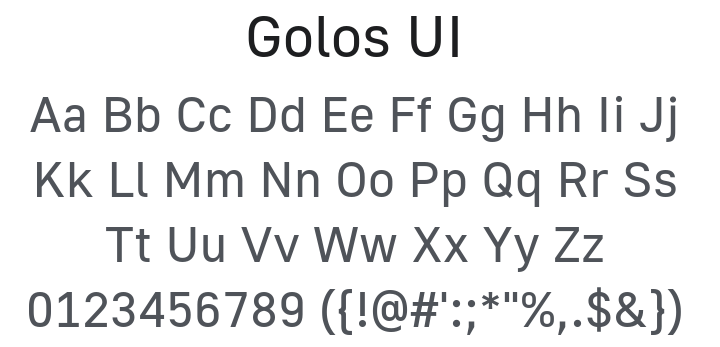
Golos UI Font Family
by ParaType
About Golos UI
Golos UI is an uniwidth sans-serif commissioned by Smena and AIC Media for state and social service websites. Golos UI suits perfectly for interfaces. Its slightly narrowed proportions save space in controls and menu bars. Uniwidth means that the line length is the same for all weights. Golos UI was designed by Alexandra Korolkova and Vitaly Kuzmin and released by Paratype in 2020.